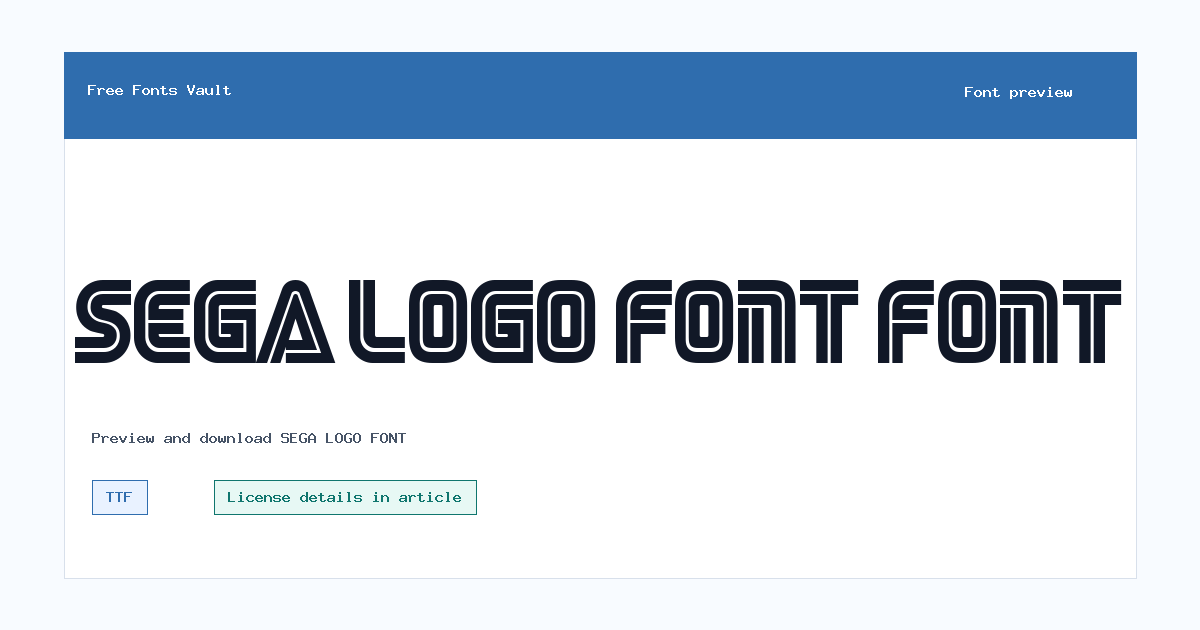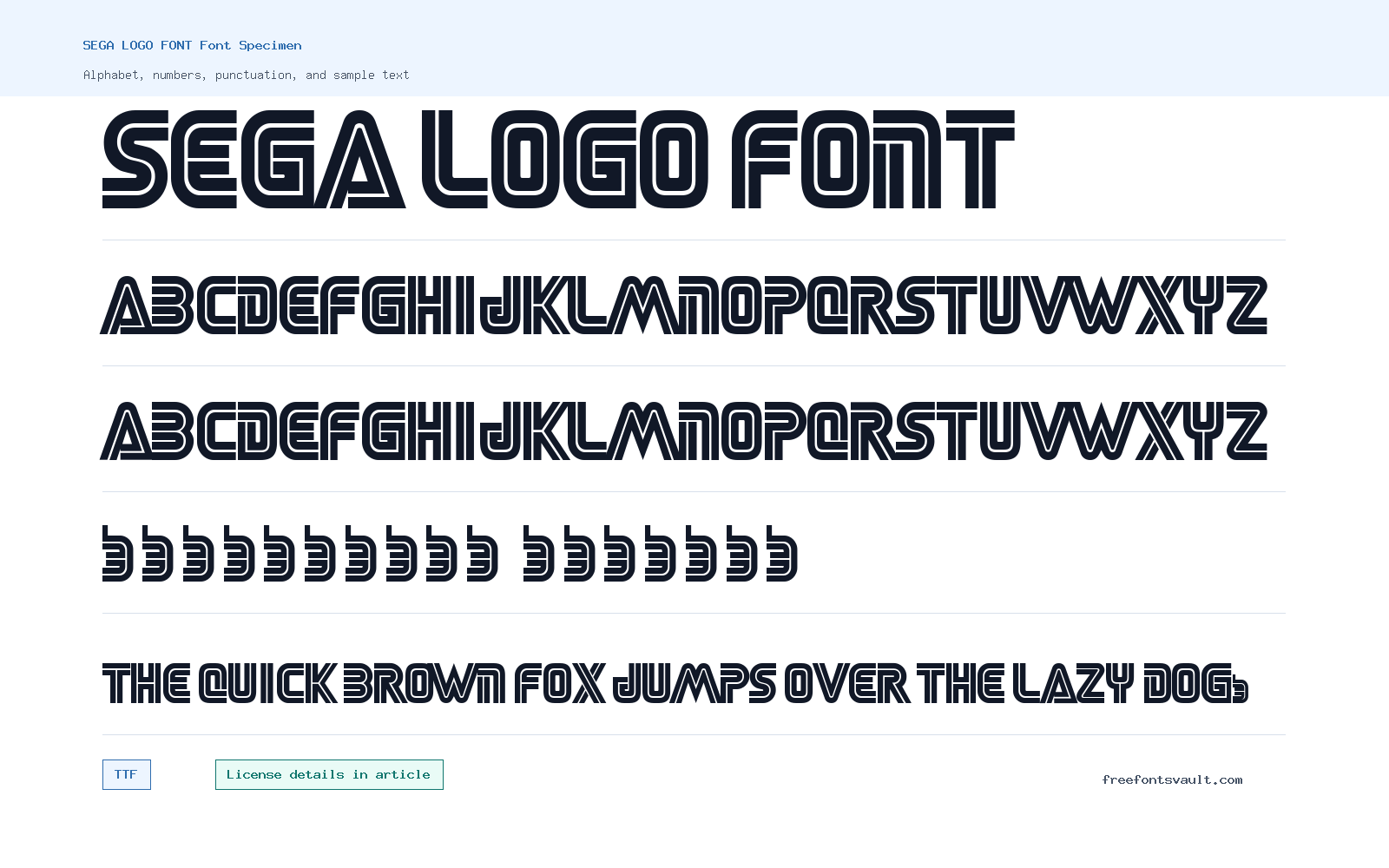
SEGA LOGO FONT
SEGA LOGO FONT is a display typeface built for short, high-impact text. Its sharp, blocky letterforms suit logo-style previews, gaming-themed headings, posters, and other places where a few words need to feel bold and graphic.
About SEGA LOGO FONT
- Bold logo-style display lettering made for short titles and graphic text
- Gaming-themed headings, posters, banners, and fan-style graphics
- Short display text, mockups, title cards, and decorative previews
Use SEGA LOGO FONT at larger sizes where its display shapes can stay clear. Pair it with a plain sans serif for body text, captions, menus, or download instructions. Avoid long paragraphs, dense all-caps blocks, and small mobile text because logo-style fonts can become hard to read when overused.
Is SEGA LOGO FONT good for body text?
No. It is better for short display text such as headings, names, posters, and preview graphics. Use a simpler font for paragraphs and small text.
What should I test in the font preview?
Try your exact title or name, then check spacing, readability, and letter shapes at the size you plan to use. Display fonts can look strong in one word but crowded in longer phrases.